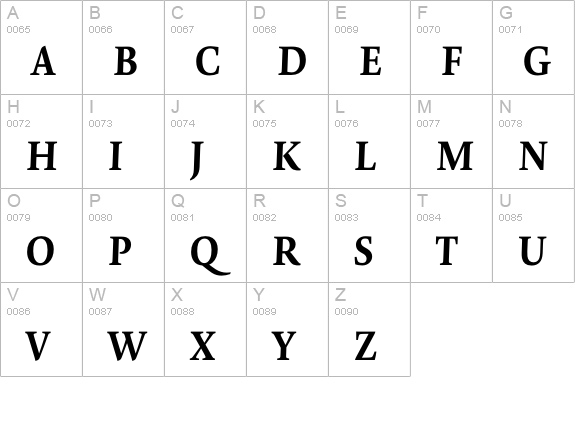
Novel Pro Bold It Font Details
Novel Pro Bold It is a strong, high-contrast variant in the Novel typeface family \xE2\x80\x94 well suited to headlines, attention-grabbing titles, and strong calls-to-action.
Novel Pro Bold It font is a stunning typeface that exudes elegance and sophistication. With its bold and striking design, this font is perfect for making a statement in your design projects. Whether you're creating posters, invitations, or branding materials, Novel Pro Bold It will add a touch of modernity and style. What makes this font even more appealing is that it is offered for free. Yes, you read that right - you can freely download Novel Pro Bold It at FontsMarket.com. This means you can elevate your designs without breaking the bank. So why wait? Give your projects a professional and polished look with Novel Pro Bold It font today!